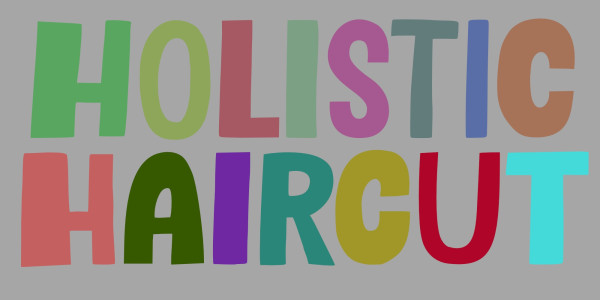
Holistic Haircut Font
Holistic Haircut Font,  With a childish style, it will be very suitable for your project, which is related to children. Such as story books, illustrations, comic books, t-shirts, posters, greeting cards, logos, branding, stickers, svg, crafting.